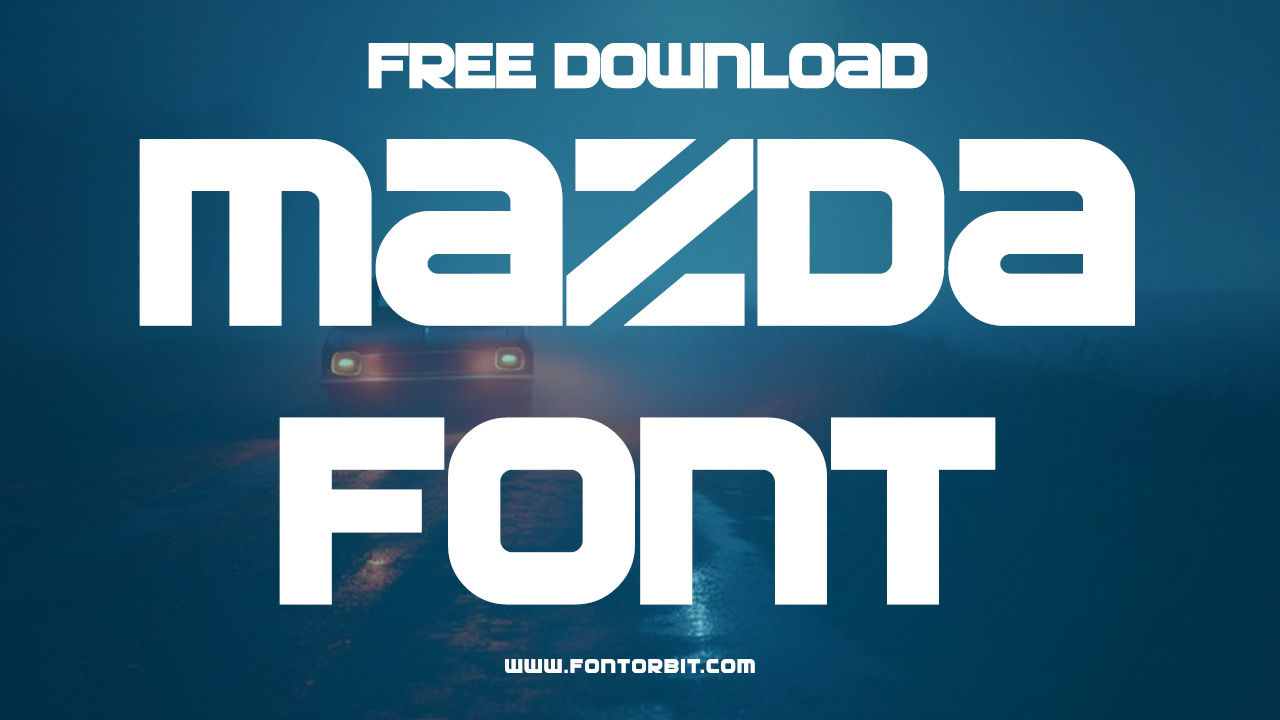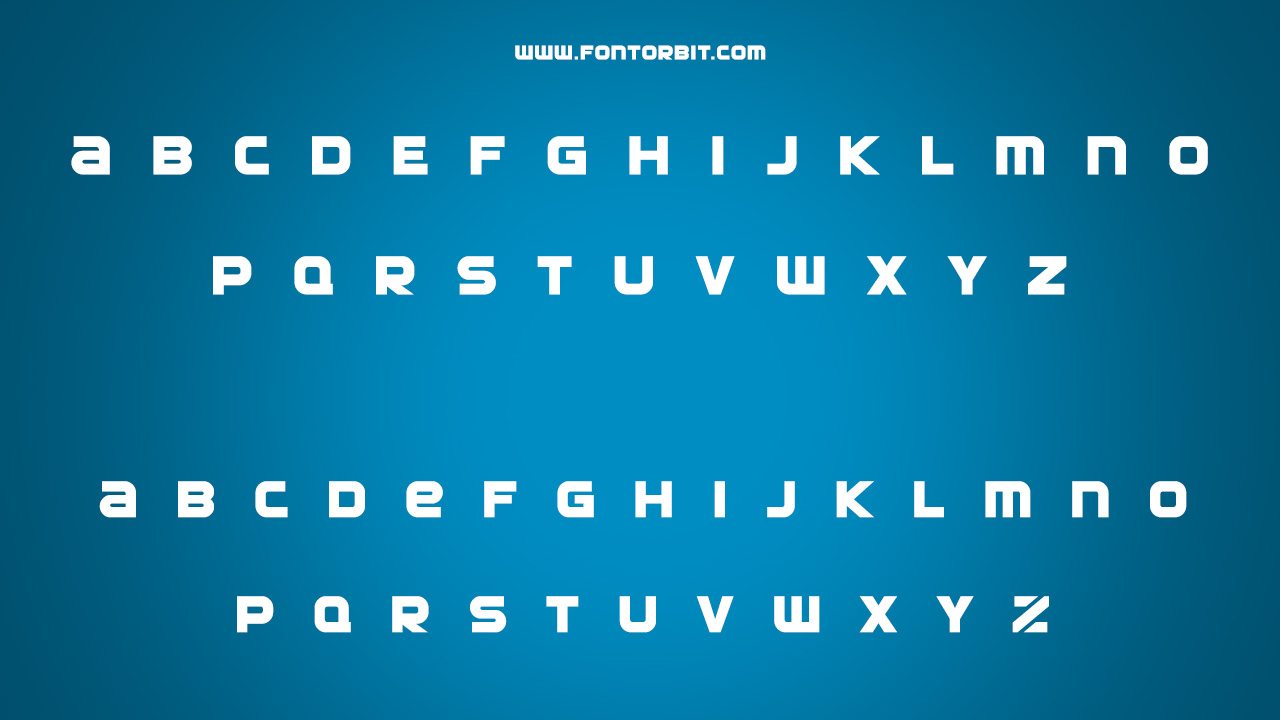
SF Automaton Font is a striking typeface inspired by the Mazda logo. It reflects the sleek, modern, and futuristic style of the renowned Japanese automotive brand. Created by ShyFonts, this font is free for personal use and captures the essence of Mazda’s innovative branding.
Types Of The Mazda Font
- SF Automaton Regular
- SF Automaton Bold
- SF Automaton Bold Oblique
- SF Automaton Light
- SF Automaton Medium
- SF Automaton Black
- SF Automaton Oblique
- SF Automaton Extended
- SF Automaton Extended Oblique
- SF Automaton Condensed
- SF Automaton Condensed Oblique
SF Automaton is well-suited for promotional materials, including websites and automotive branding. It’s also perfect for magazine and brochure covers, high-tech presentations, and forward-looking ad campaigns, offering a sleek and modern typeface that complements futuristic and innovative themes.
SF Automaton Font, designed by ShyFonts, mirrors the modernity and innovation of the Mazda logo. Free for personal use, it’s ideal for cutting-edge branding and high-end design, adding a contemporary and sleek touch to your projects.
1.What Is The Font Descender Of The Mazda Font?
The SF Automaton font in the Mazda logo has minimal descenders, maintaining a modern appearance.
4.What Is The Font Baseline Of The Mazda Font?
The SF Automaton font in the Mazda logo uses a straight baseline for a clean, sleek look.
5.Who Designed The Mazda Font?
The Mazda logo font, SF Automaton, was designed by ShyFonts.